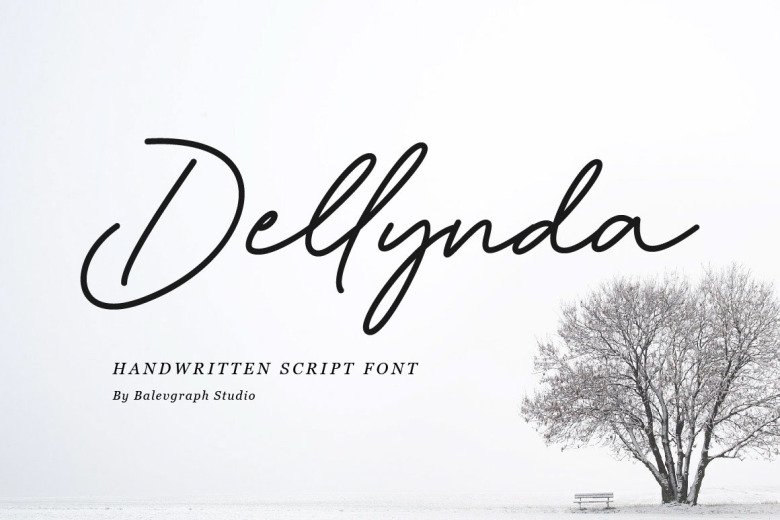
Delliynda Handwritten Font is a fashionable, thin lettered script font. This font is equipped uppercase, lowercase ,numeric and symbols. Fall for its ravishing style and use it to create gorgeous wedding invitations, beautiful stationary art, eye-catching social media posts, and much more!
Delliynda Handwritten Script Font